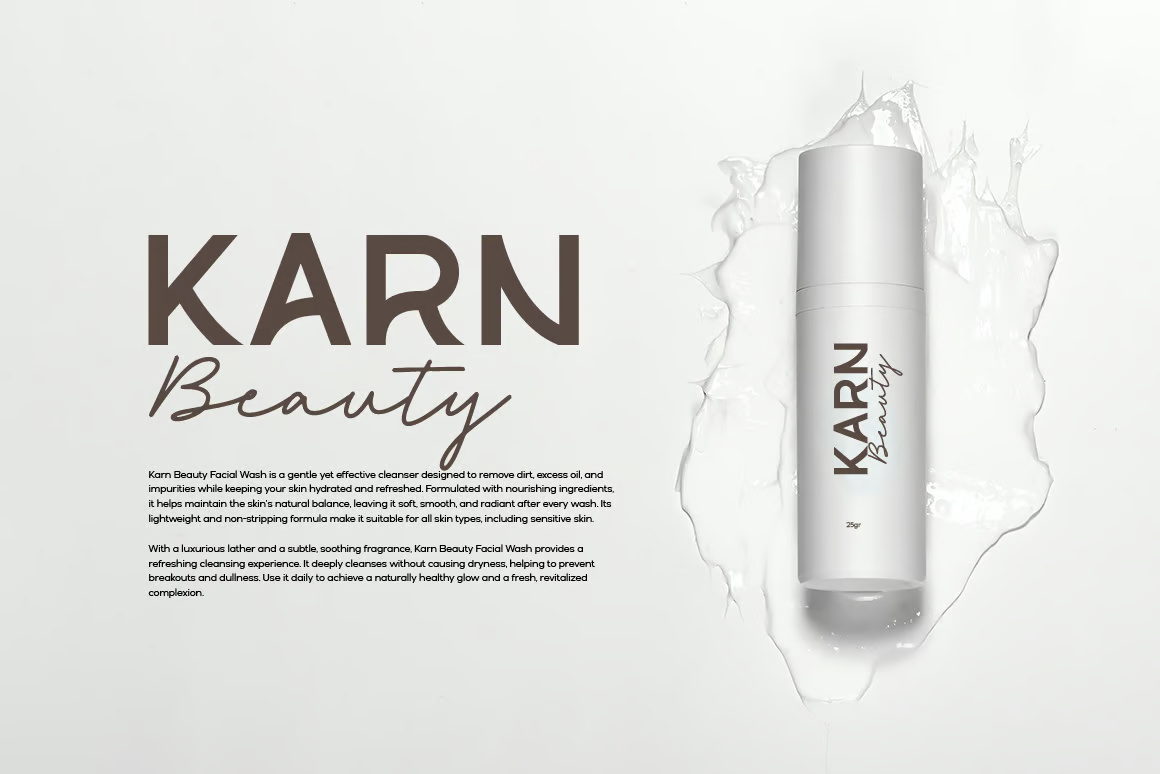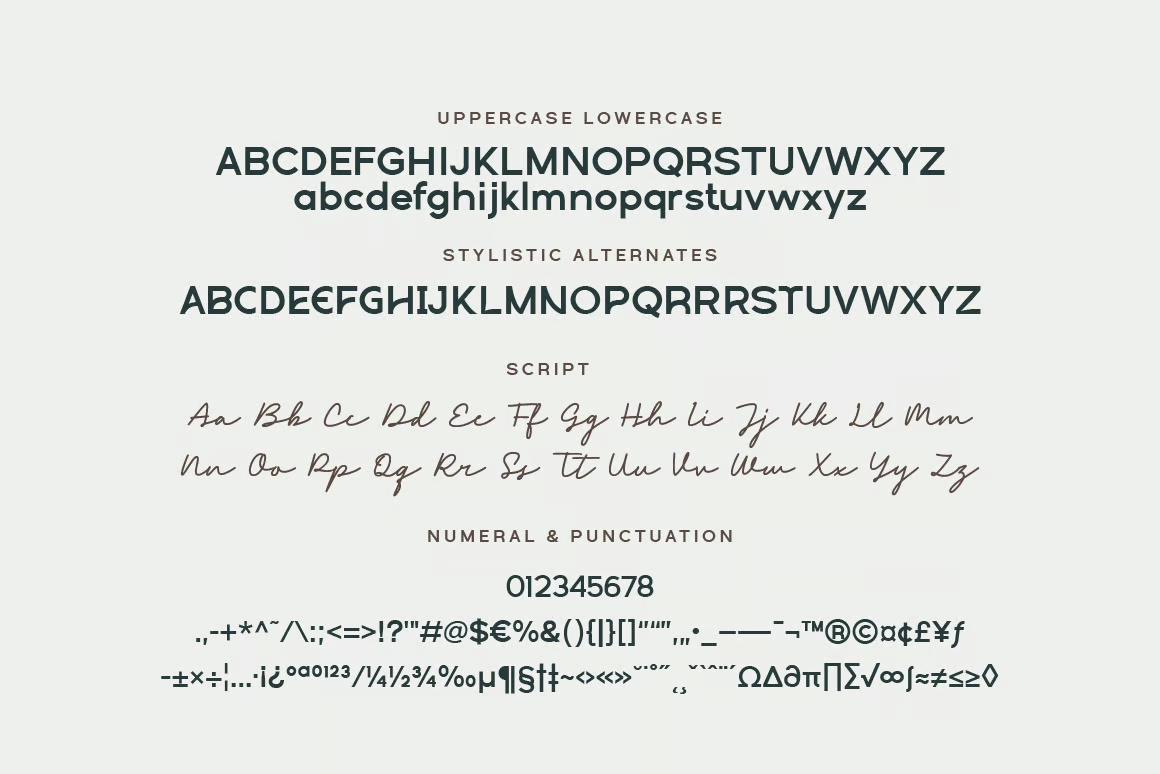
Morien Modern Font Duo
Morien is a versatile font duo featuring a modern sans-serif and an elegant handwritten script, designed to bring sophistication and creativity to your projects. With 30 stylish alternates, this font allows for seamless customization, ensuring a unique and polished look. The fluid alternates blend effortlessly with the main characters, making it ideal for logos, branding, invitations, packaging, social media graphics, and more. Whether you’re crafting a luxurious brand identity or an artistic design, Morien provides a perfect balance of modernity and charm.
Morien Modern Sans Serif Font Duo